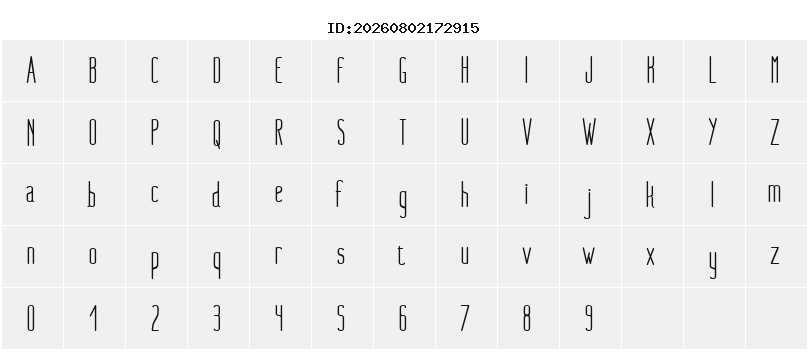
Nue Bold Preview
• Font Name: Nue Bold
• Designer: Julia Martinez Diana
• Manufacturer: Julia Martinez Diana, Antipixel
About Nue Bold.ttf
Nue Bold.ttf is a modern, elegant sans-serif font designed for ultimate readability and visual harmony. Perfect for branding, headlines, web design, and print materials.